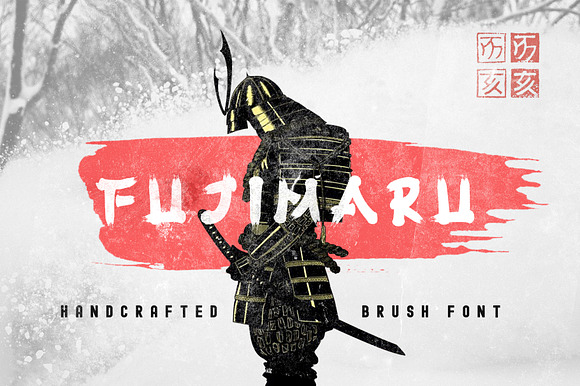
Fujimaru - Ninja's Brush Font
Fujimaru is a bold and handcrafted brush font, its have an asian and oriental looks, a perfect companion for your creative project that has an asian niche. Fujimaru can be used as horror effect or even the fun title for cartoon movie, just pick your style :). Fujimaru is doing his best at the heading title,movie poster,quotes text,and so on..
Fujimaru - Ninja's Brush Font by Nurrehmet Studio fits naturally into Branding, posters, packaging, typography.